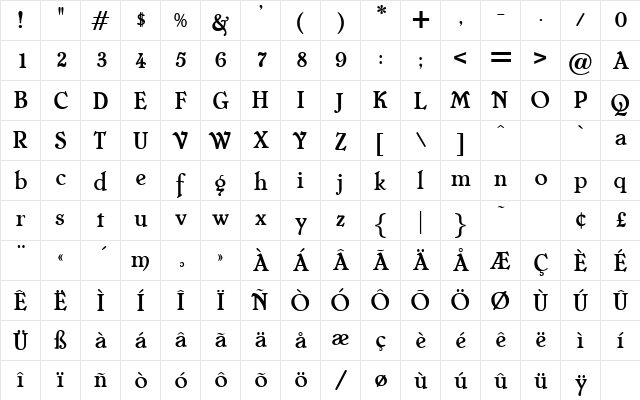
Cheboygan Regular
Design Context for Cheboygan Typeface
Cheboygan offers clean, dependable letterforms without strong stylistic allegiance, making it a practical choice for designers who need flexibility.